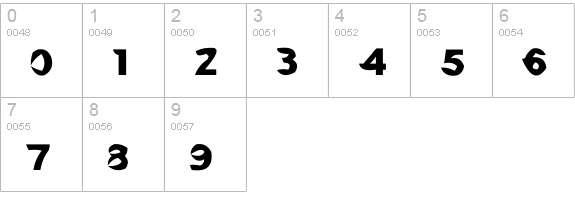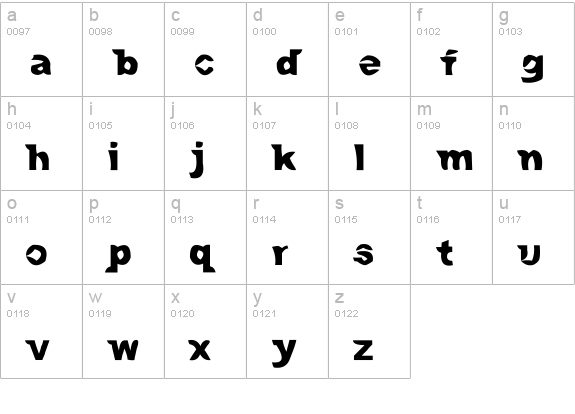
Mac and Sidney font is a stunningly versatile typeface that effortlessly blends modernity with classic elegance. Its sleek and sophisticated design is perfect for a wide range of creative projects, from branding and advertising to editorial design and web development. Crafted with meticulous attention to detail, Mac and Sidney font features clean lines, balanced proportions, and a harmonious combination of sharp edges and gentle curves. This unique combination gives the font a distinctive and dynamic look that is both visually appealing and highly legible. One of the most remarkable aspects of Mac and Sidney font is that it is available for free download at FontsMarket.com. This means that anyone can easily access this remarkable typeface and use it to elevate their design projects, without any cost or limitations. Whether you are a professional graphic designer, a student, or someone with a passion for creative expression, Mac and Sidney font offers a wealth of possibilities. Its extensive character set includes uppercase and lowercase letters, numbers, punctuation marks, and a variety of special characters, ensuring that you have everything you need to create visually stunning and engaging designs. With Mac and Sidney font, you can effortlessly convey your message with style, sophistication, and a touch of modernity. Its versatility makes it suitable for a wide range of design applications, from logo design and branding to packaging, posters, and social media graphics. Experience the beauty and versatility of Mac and Sidney font today by downloading it for free at FontsMarket.com. Unleash your creativity and let this remarkable typeface take your design projects to new heights.